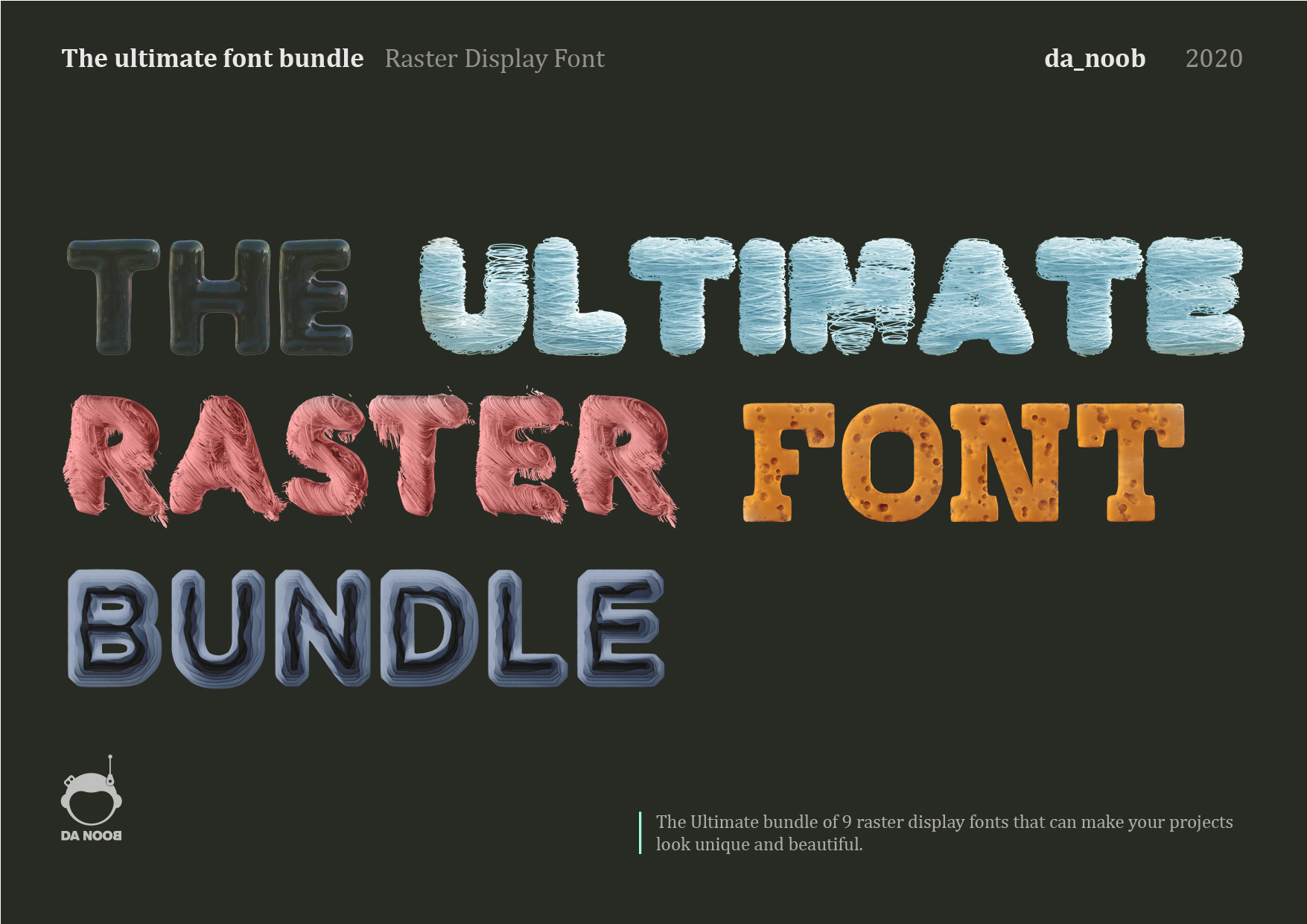
The Ultimate Raster Display font bun
The product is a collection of 9 beautiful high quality raster display fonts that are made to show high texture and form qualities. the bundle includes the following products from my page:
Wrap - Raster display font
Shapes - Raster display font
Kiri - Raster display font
Organic - Raster display font
Shred - Raster display font
Cheese - Raster display font
Bubble - Raster display font
Brick - Raster display font
Melt - Raster Display font
PLEASE NOTE that this is a display font.
The font does not contain special characters and small alphabets.
Each alphabet can be scaled to 1500px * 1500px without loosing the quality.
The font comes in grey scale so that you can color it according to your needs.
These are not vector fonts.